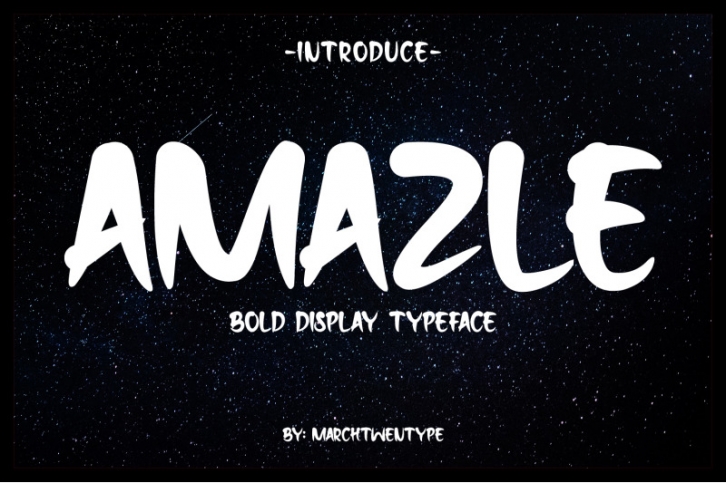
AMAZLE is a bold typeface made with unique brush strokes. It is suitable for many projects such as movie titles, posters, headings, book covers, clothing, labelling, album covers, logos material and more.
Amazle Features:
- Numerals & Punctuations
- Multilanguage support